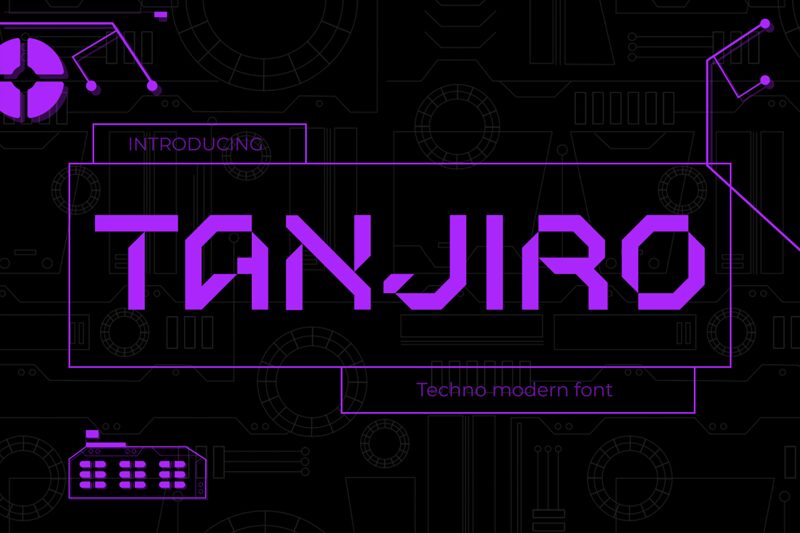
TANJIRO
Tanjiro font by Pinisiart is a free display font that combines futuristic and geometric elements in a modernist aesthetic. Its angular, sharp, and mechanical appearance makes it stand out in any design project.
This techno font suits logo designs, headlines, posters, signage, banners, advertising campaigns, video game interfaces, mobile apps design, website headers as well as tech-themed illustrations.